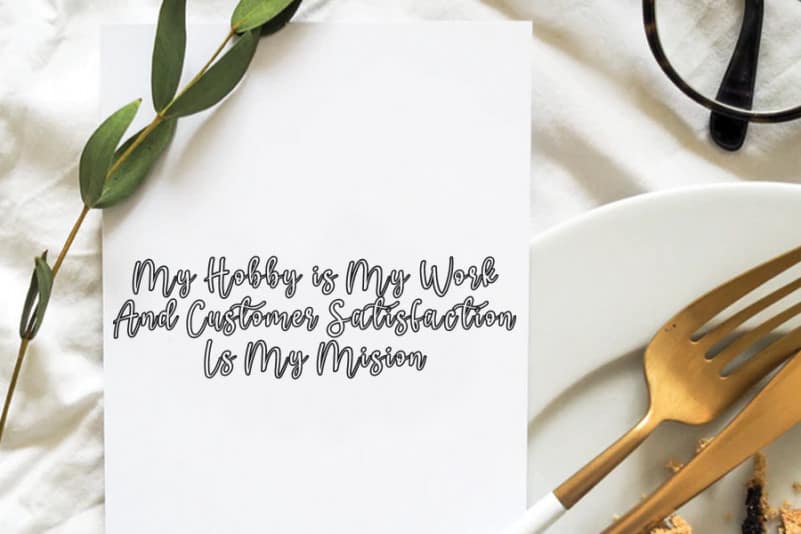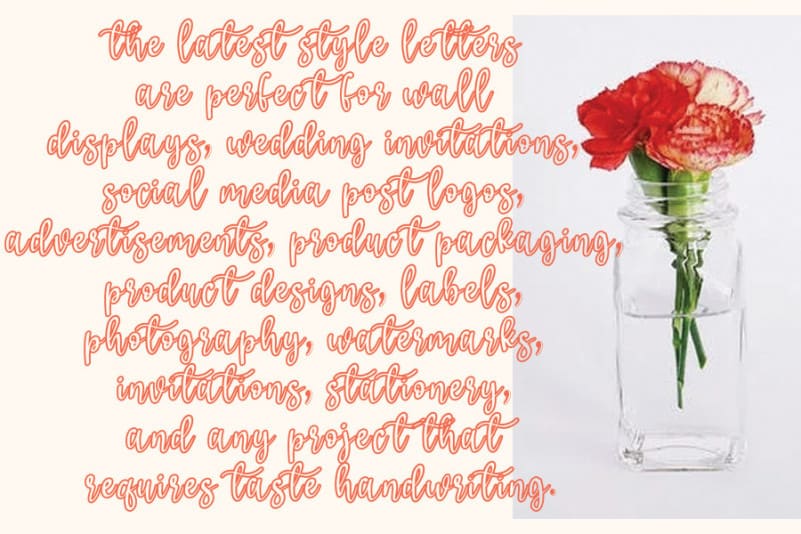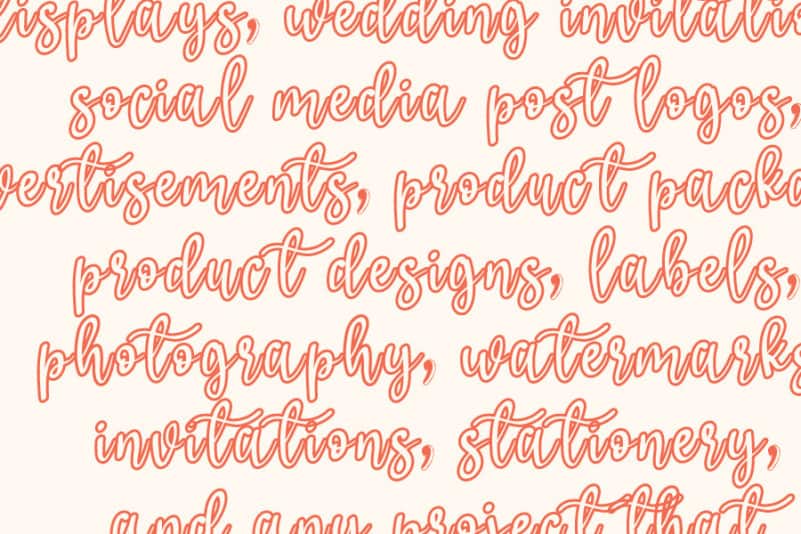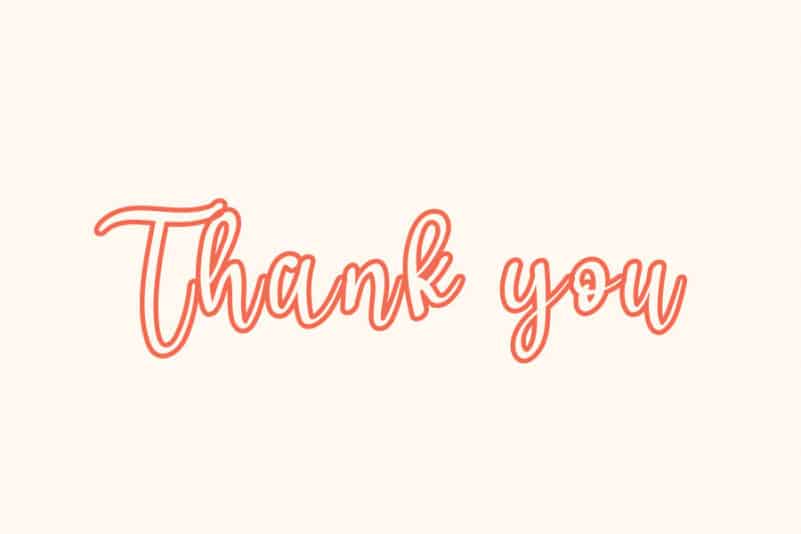
Hello Line Script Font
Hello Line Script Font is a flowing display font. Fall in love with its incredibly versatile style and use it to create gorgeous wedding invitations, beautiful stationary art, eye-catching social media posts, and much more!